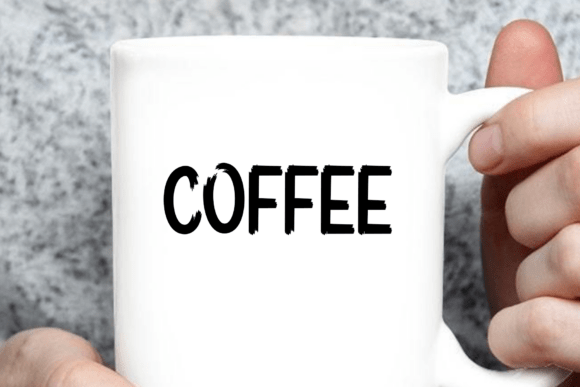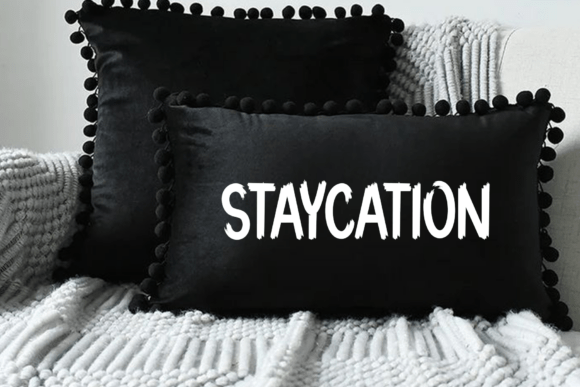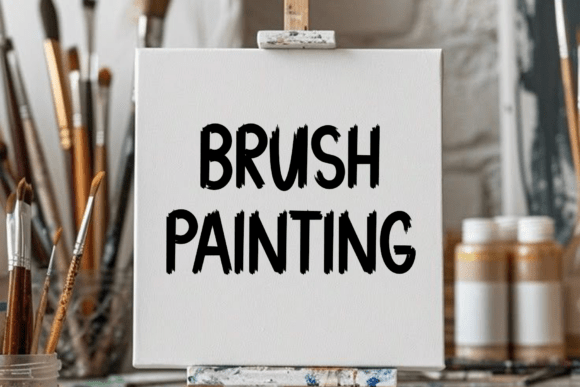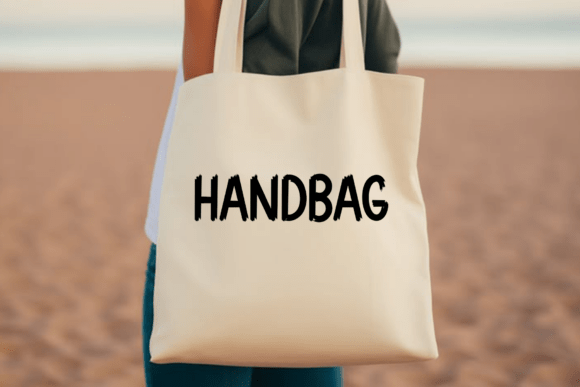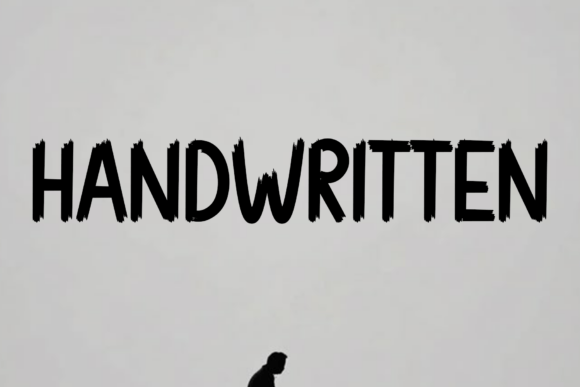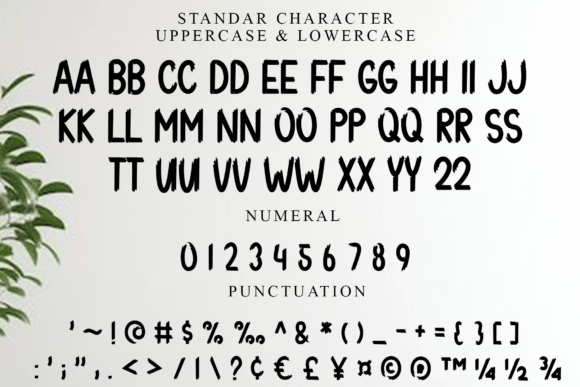
The Perfect Brushstroke: Unlocking the Magic of the Chalk Brush Font
Who hasn’t scribbled down a quick idea or doodled a design concept with a piece of chalk on a sidewalk or a blackboard? There’s something so endearing about the imperfections and whimsy of hand-drawn marks that make them instantly relatable and engaging. For designers, capturing this same warmth and friendliness in a digital format can be a challenge – but what if you had the perfect tool to do just that?
Enter the Chalk Brush Font, a casual and creative typeface that embodies the essence of hand-drawn charm. Its playful strokes and rounded edges create a relaxed and approachable feel, making it perfect for personal projects, invitations, and social media graphics. With its unique aesthetic and versatility, the Chalk Brush Font is a valuable addition to any designer’s toolkit.
Key Features of Chalk Brush Font
- Font Family: Chalk Brush
- Unique Characteristics: Distressed, handwritten, and brush-like appearance, making it ideal for creative and artistic designs.
Chalk Brush Font Review
First off, I want to say that I really like the overall aesthetic of Chalk Brush Font. It’s perfect for creating a playful, handwritten feel in your designs ✨. The font is incredibly versatile, and I’ve seen it used in a wide range of applications, from branding to advertising.
One of the things that I think really sets Chalk Brush Font apart is its unique character set. The font includes a wide range of glyphs, from letters and numbers to punctuation and symbols. This makes it a great choice for designers who need to create a custom, one-of-a-kind look ✨.
- Playful, handwritten feel
- Incredibly versatile
- Unique character set
- Perfect for branding and advertising
- May not be suitable for formal or professional applications
- Can be difficult to read in small sizes
- May not be available in all font sizes and styles
- Can be prone to kerning issues
Overall, I think Chalk Brush Font is a great choice for designers who want to add a touch of personality to their work. While it may have some limitations, the font’s unique character set and versatility make it a valuable addition to any design toolkit ✨.
The Chalk Brush Font is perfect for creating a distressed or vintage look in your designs. Use it for:
- Event invitations
- Personalized gifts
- Artistic quotes
- Branding materials
Experiment with different font sizes, colors, and styles to achieve the desired effect.
Alternatives to Chalk Brush Font
Great Vibes Font is a modern calligraphy script font that’s perfect for creating a unique and elegant look. It’s ideal for headings, titles, and quotes. When to use: for a modern and creative feel.
Comparison: Great Vibes Font is more refined and elegant compared to Chalk Brush Font. It’s better suited for formal and high-end designs.
Pacifico Font is a beautiful script font with a relaxed and casual feel. It’s perfect for creating a friendly and approachable atmosphere. When to use: for a casual and friendly tone.
Comparison: Pacifico Font is more laid-back and casual compared to Chalk Brush Font. It’s better suited for designs that require a relaxed and approachable tone.
Alex Brush Font is a elegant and refined script font that’s perfect for creating a sophisticated and luxurious look. It’s ideal for headings, titles, and logos. When to use: for a high-end and luxurious feel.
Comparison: Alex Brush Font is more refined and elegant compared to Chalk Brush Font. It’s better suited for formal and high-end designs.